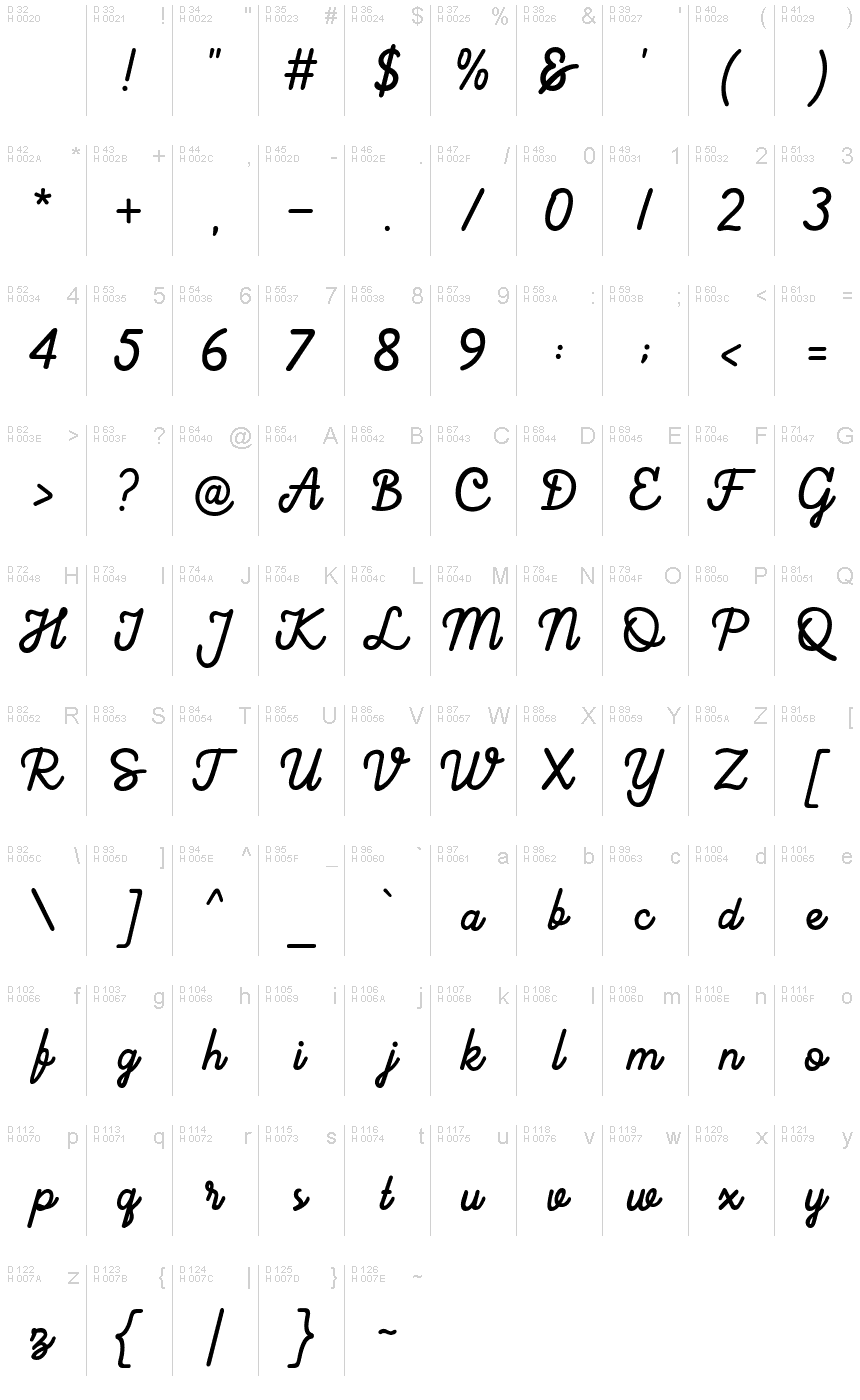
Hearttaker
Introduce, Hearttaker. If you interest with monoline script font, This style is great choice for you. Hearttaker looks simple and casual. Hearttaker is perfect for T-shirt design, wedding sign, advertisement, logo design, quote, product lable, product packaging, and any project.